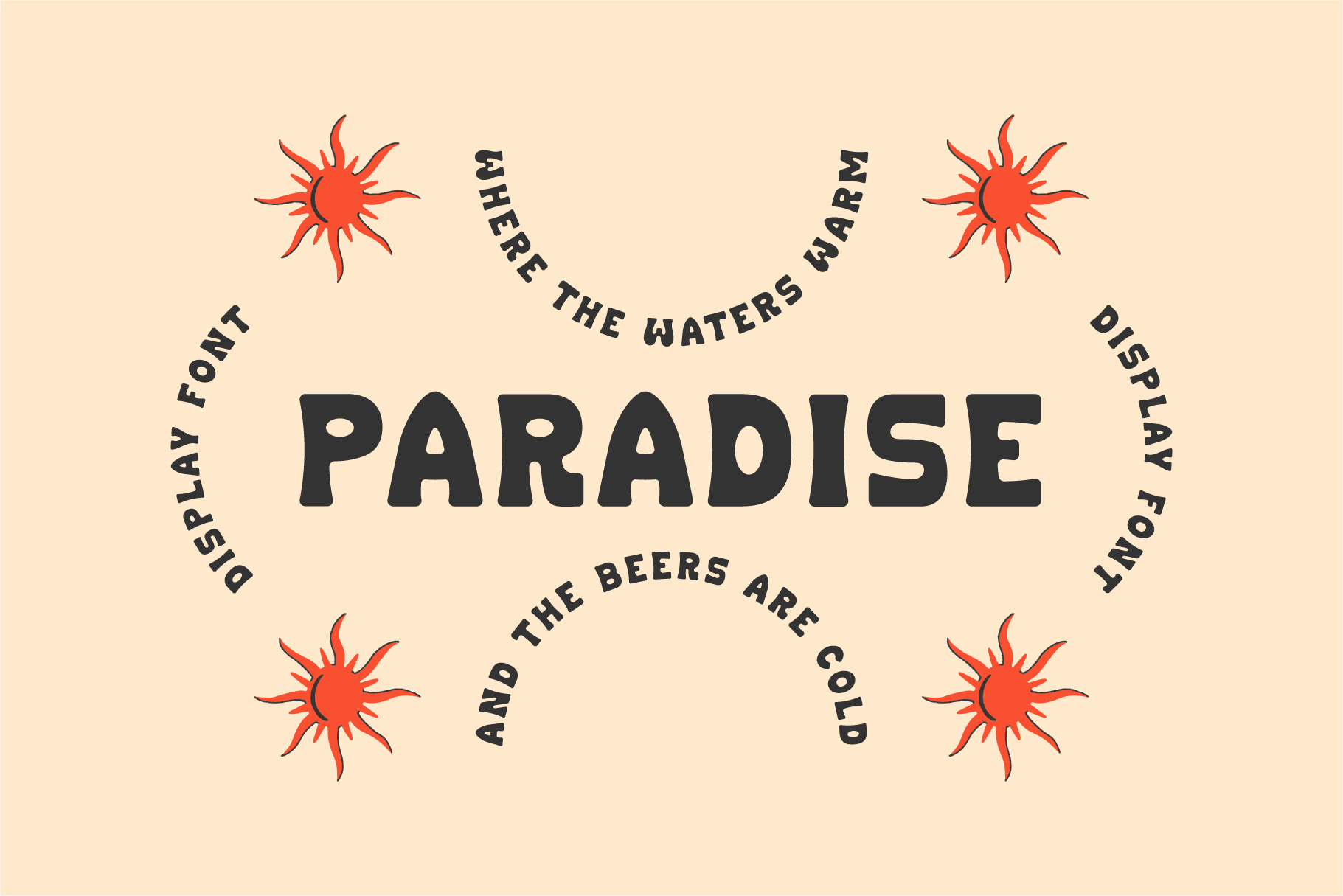
PARADISE FONT
Our Paradise font has been designed to be approachable and fun. We took inspiration from tropical destinations and waves crashing on shore to create a free flowing harmony. With a sunshine and surfy vibe to it, we love the way this font looks in logos that need a little extra character or personality.
Revised – Now includes numbers and basic punctuation.
It's a cute font, but there is no period character or numbers? That seems like a miss. I was going to use it to say 'EST. 1996' and was completely unable.